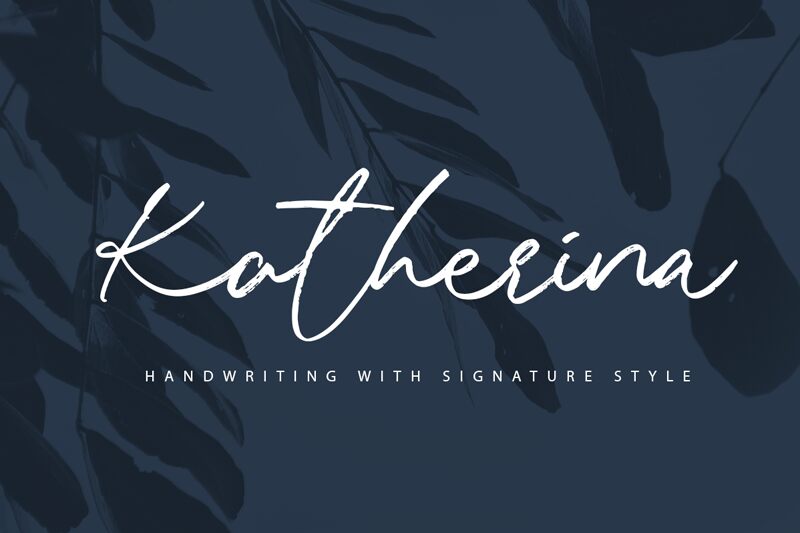
Katherina Signature Regular
Introducing Katherina Signature, the perfect font for those who want to add a touch of elegance and personalization to their projects. Designed by Gitayogi, this signature handwritten font is light in weight and full of character. Its flowing curves and graceful strokes make it perfect for invitations, wedding stationery, logos, and branding materials. Imagine using this font on a menu at a high-end restaurant or on the cover of a fashion magazine. Katherina Signature will add sophistication and class to any project you have in mind!